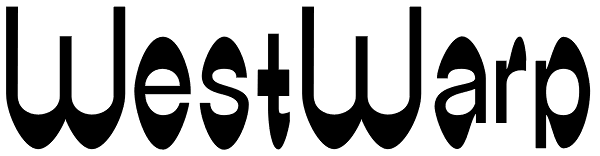
WestWarp
Thick horizontals reminiscent of certain Egyptian or western-themed display faces warp into stretched-out glyphs and strange elliptical forms in this haphazard, page-filling font. Sure to evoke images of saturday morning cartoons, zany retro...